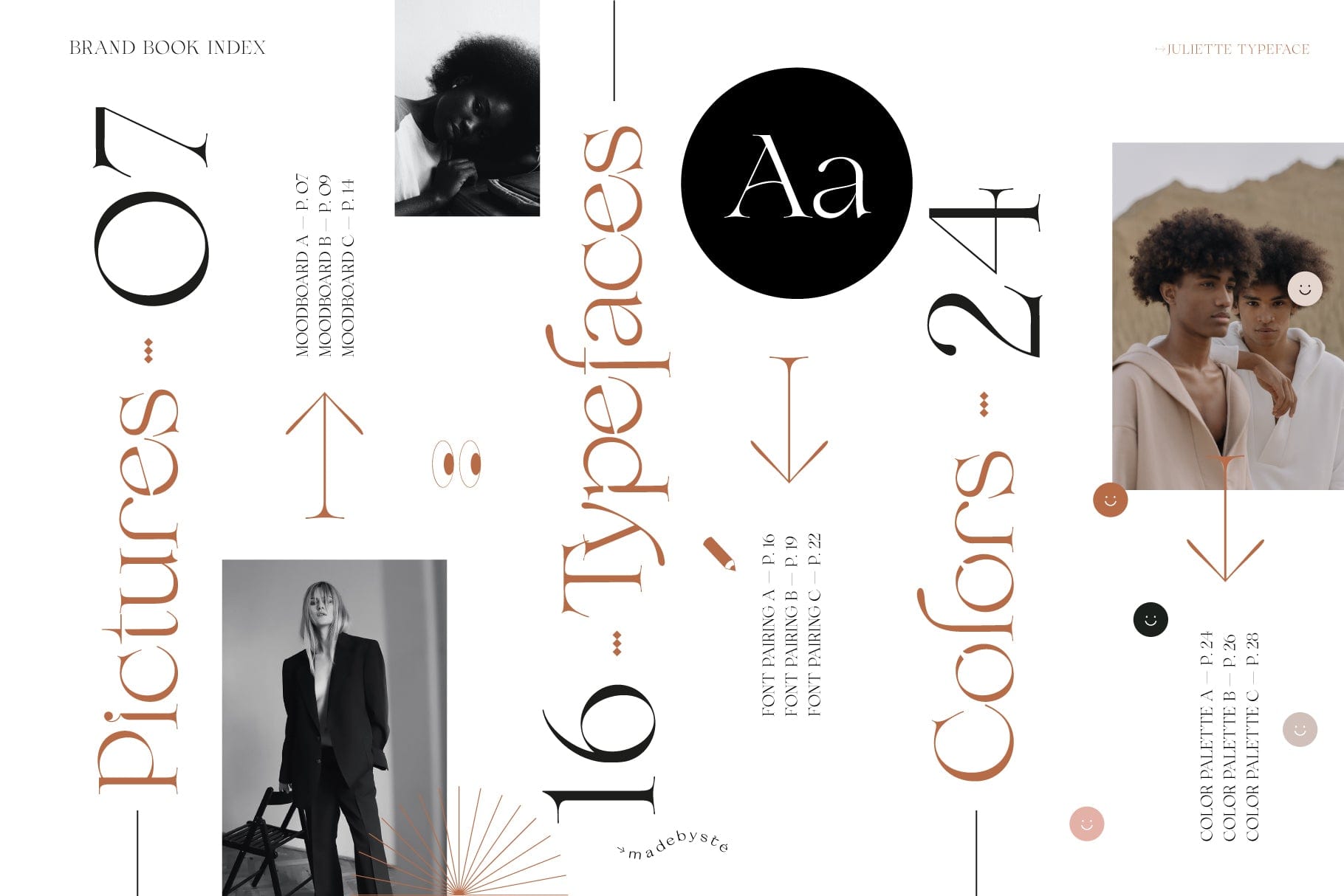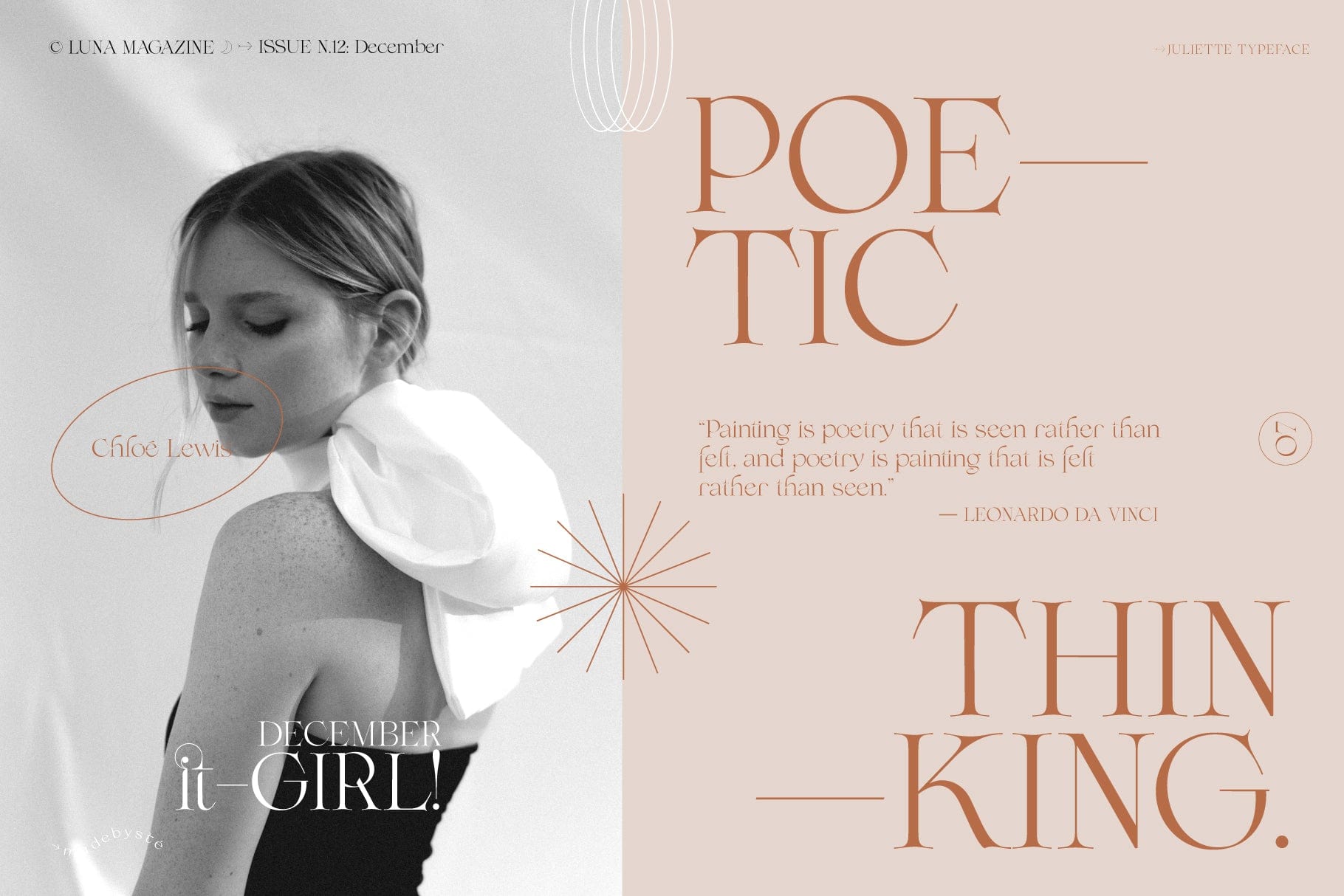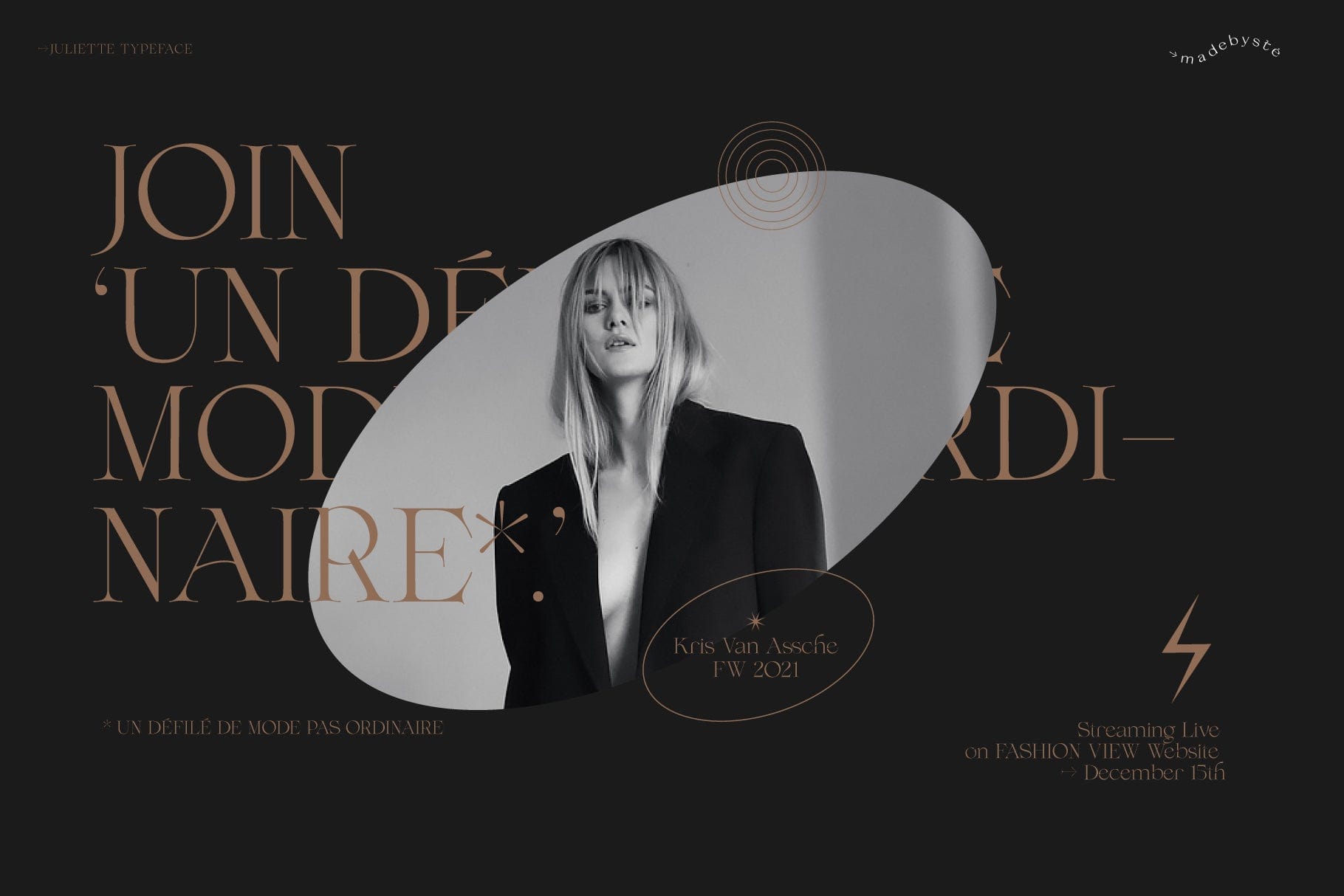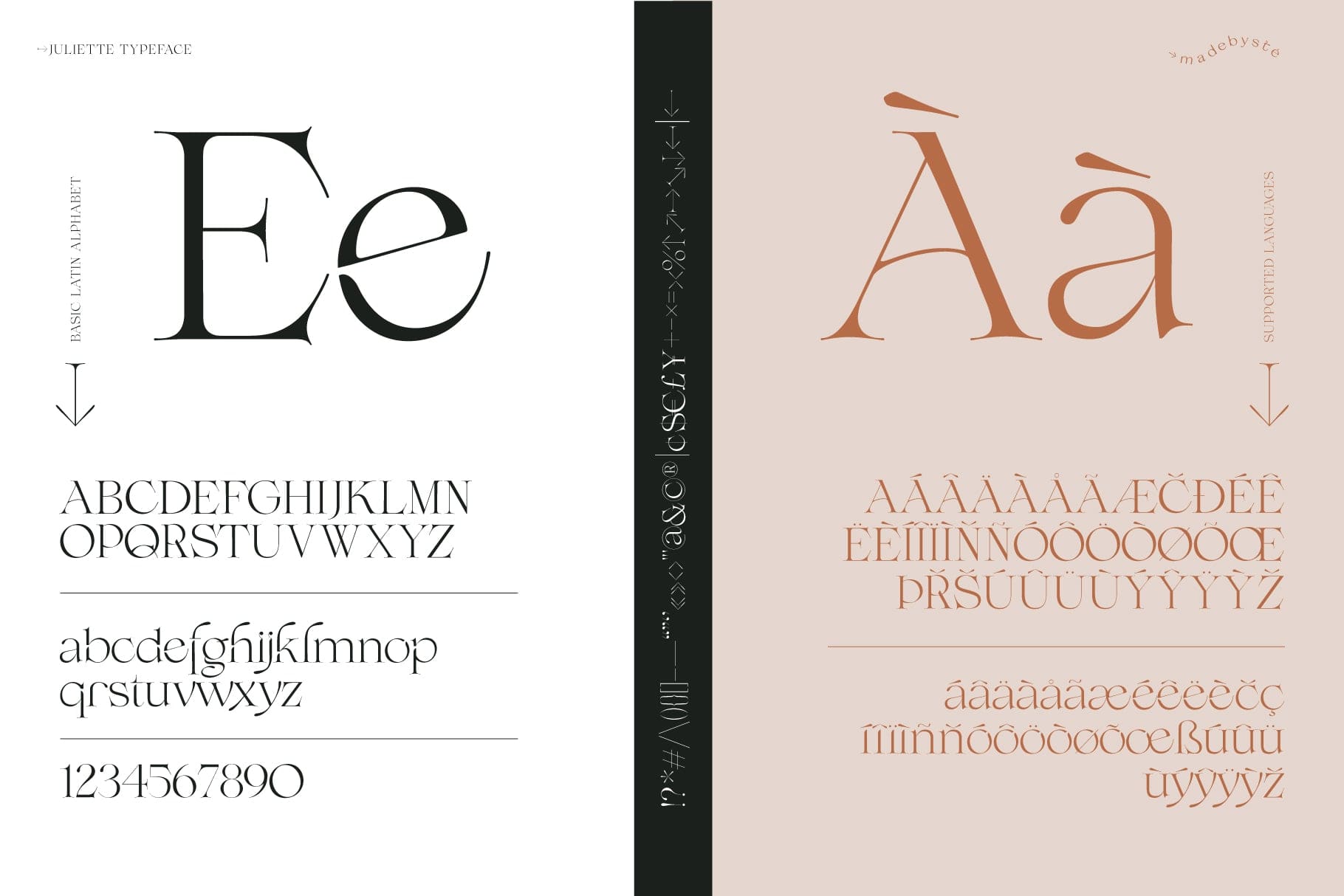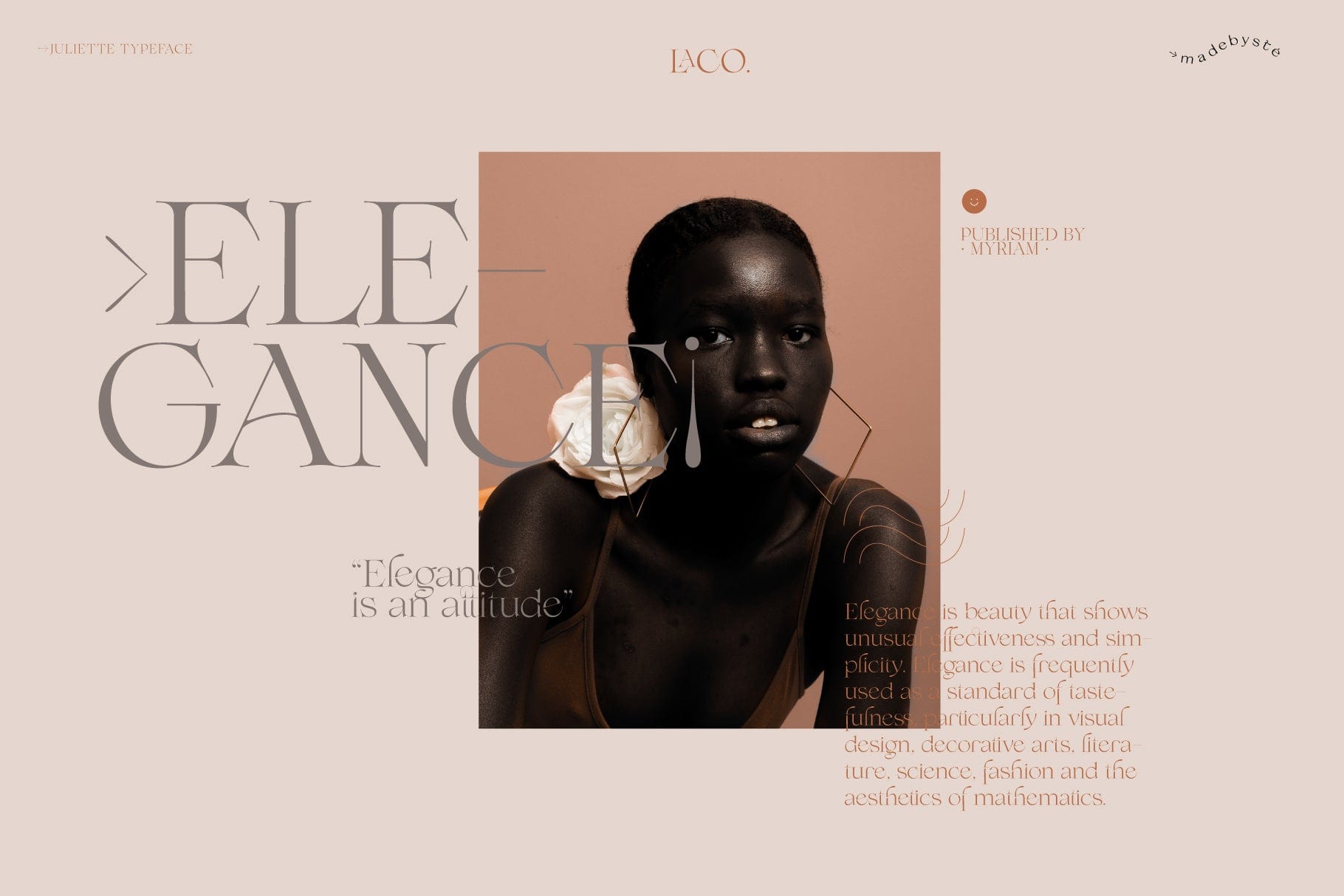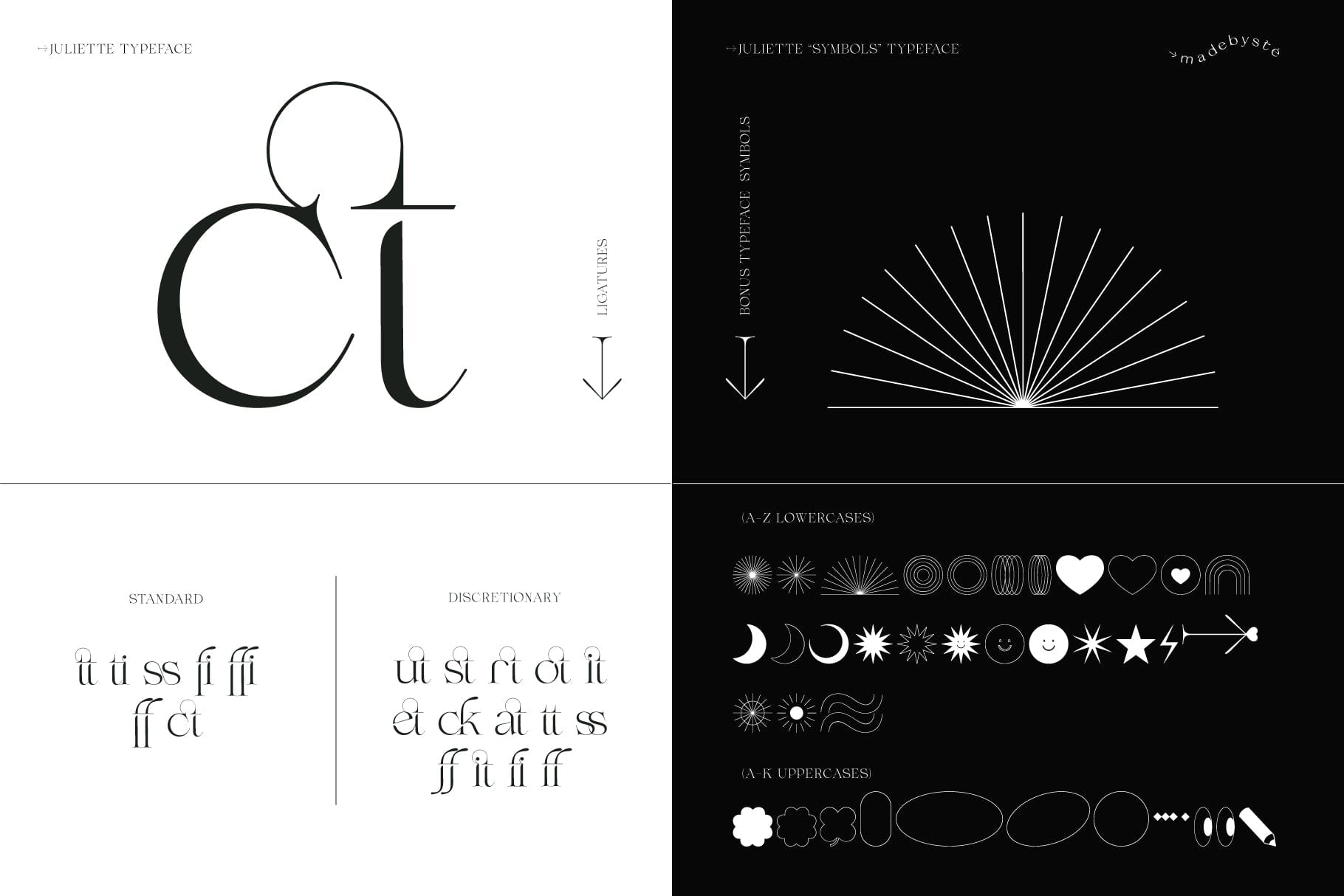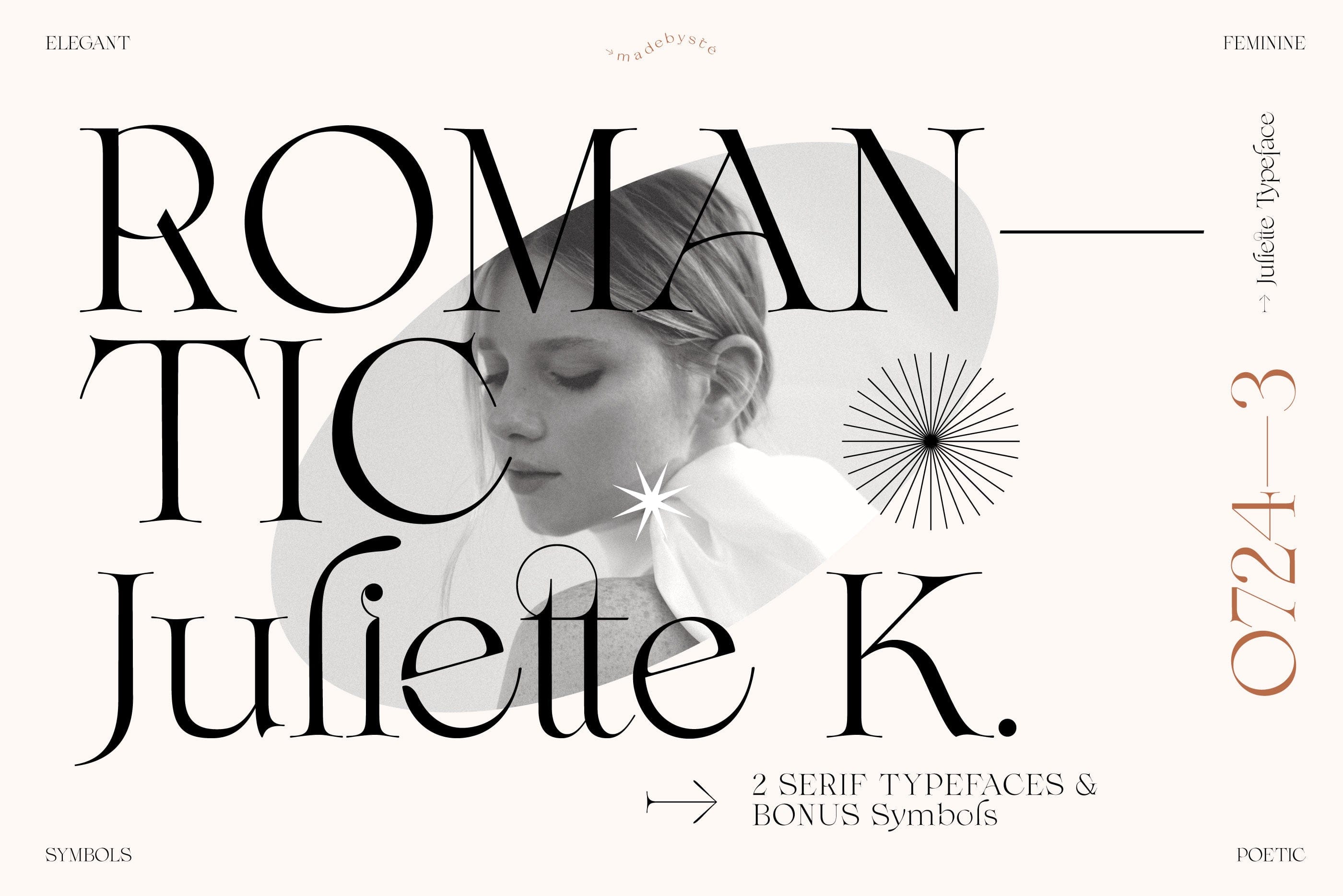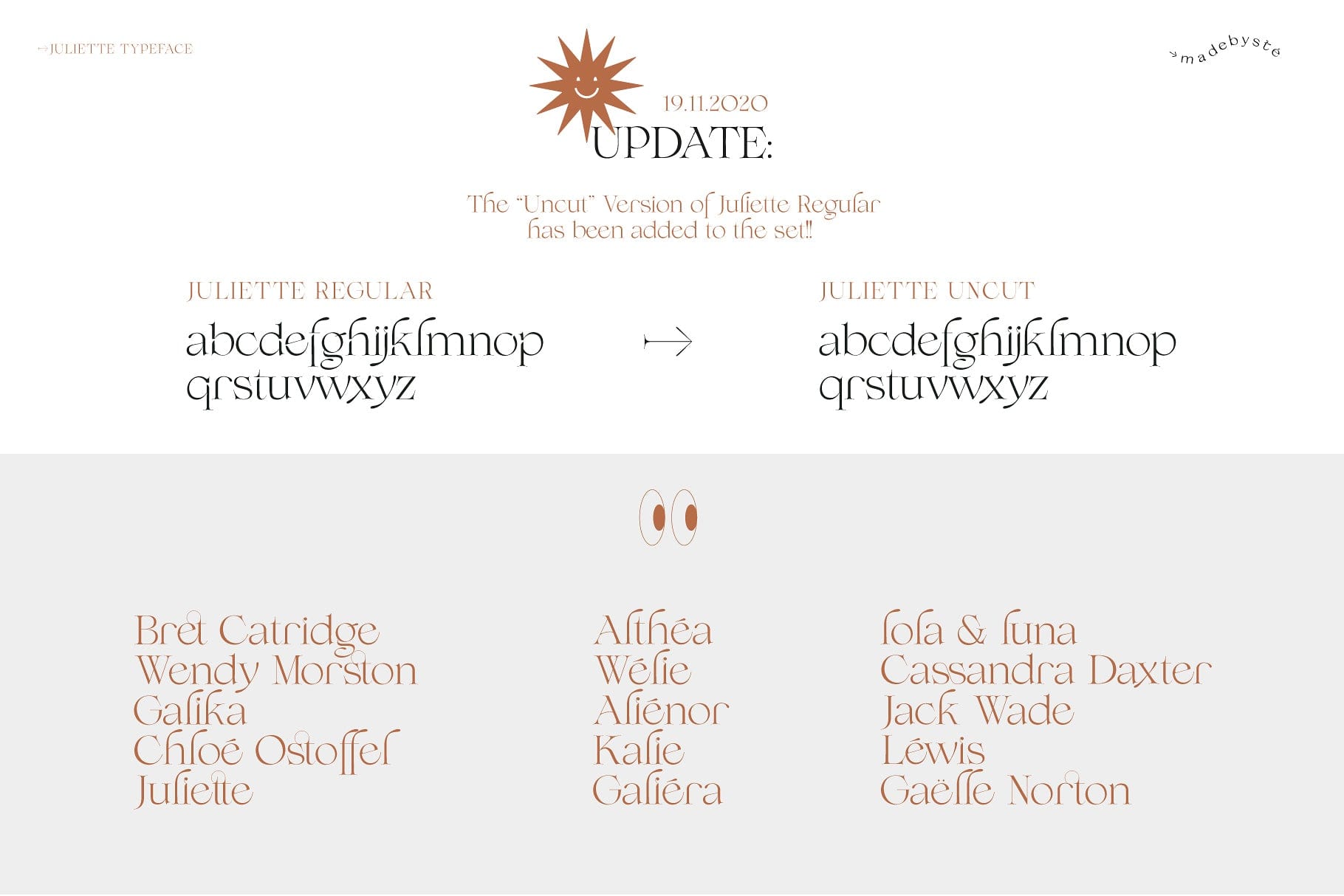
Juliette Typeface
Juliette Regular is a mix of sweet curves with the lowercase set and strong impactful letters for the uppercase set. This typeface has a "yin and a yang" that's what makes it very unique. Combine Juliette Regular, Juliette Uncut and Juliette Symbols to create stunning and unique designs. Have fun!